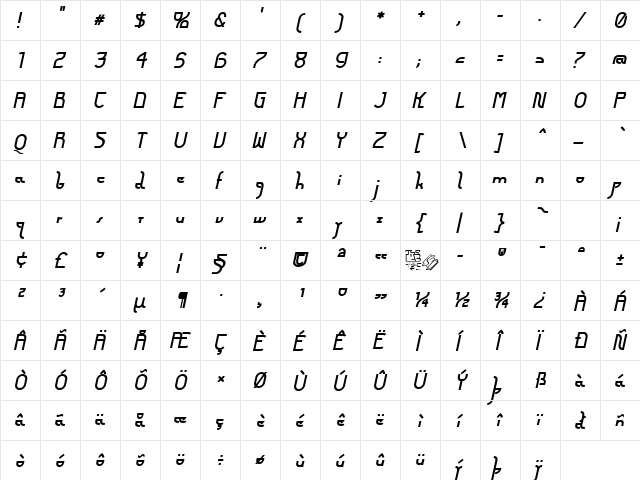
Futurex Arthur Bold Italic Font Preview
Design Context for Futurex Arthur Typeface
Futurex Arthur channels digital-age aesthetics through its sharp, structured letterforms — ideal for brands that want to signal innovation. The slanted form adds forward momentum and visual energy. The heavy weight commands attention and anchors typographic hierarchies.